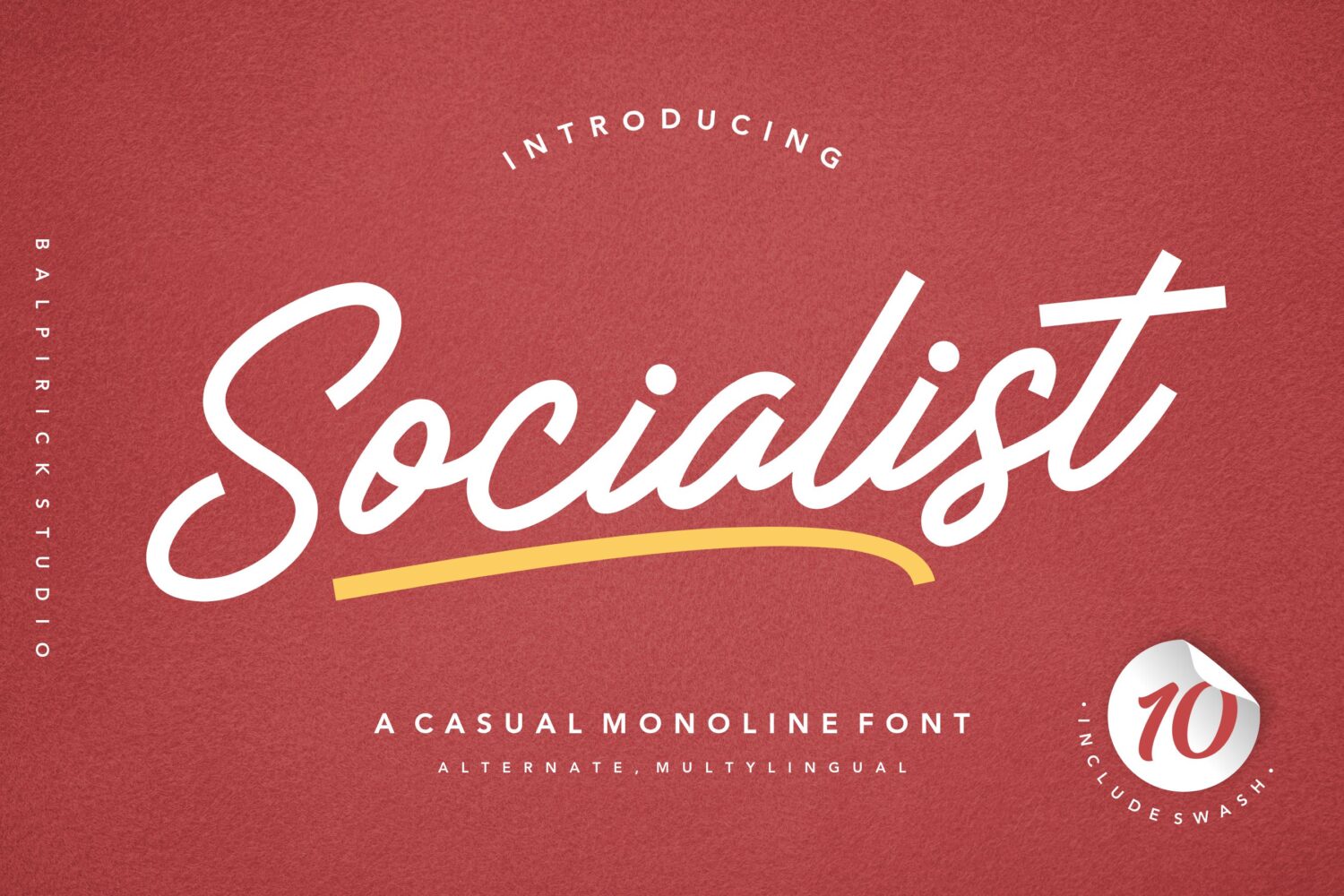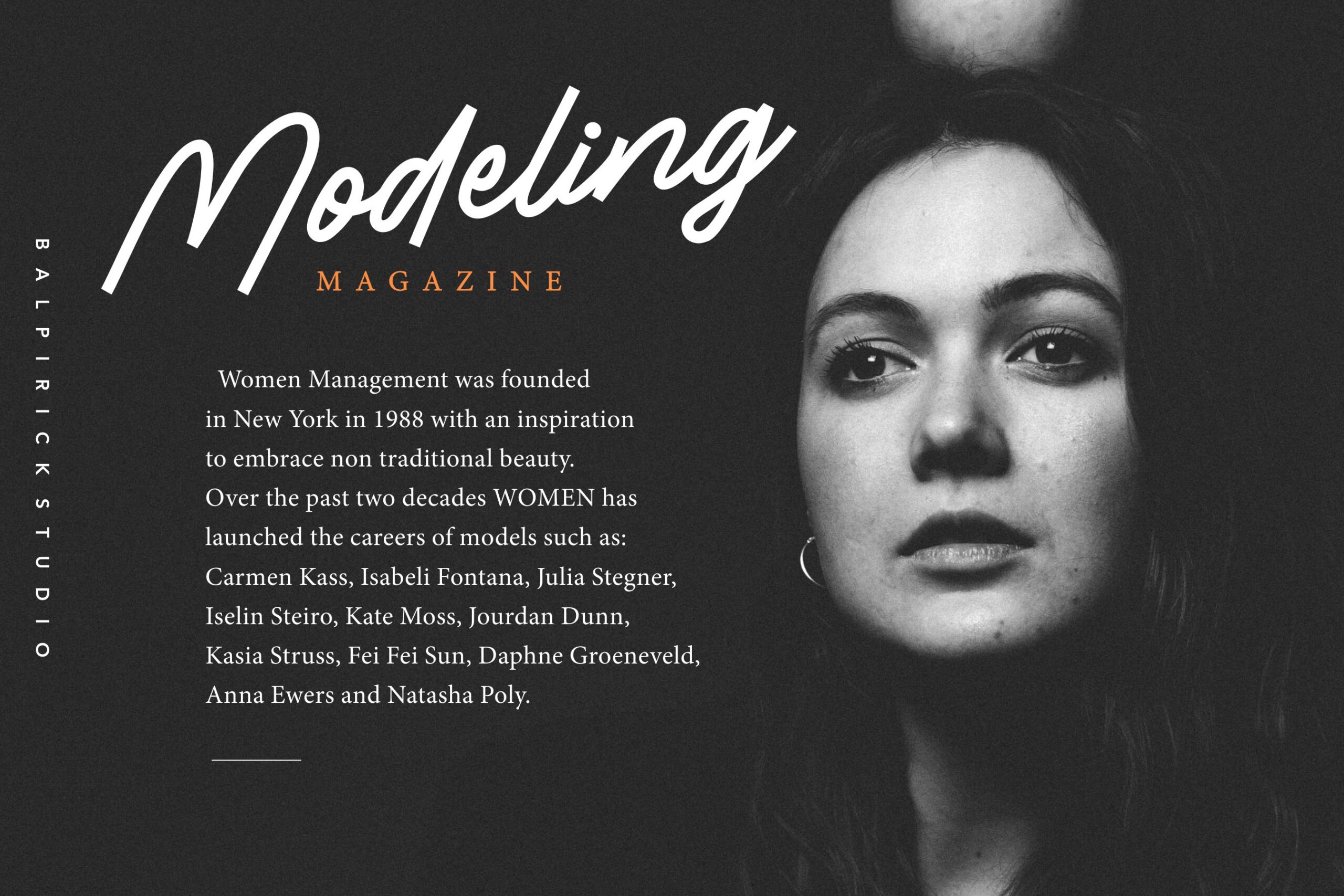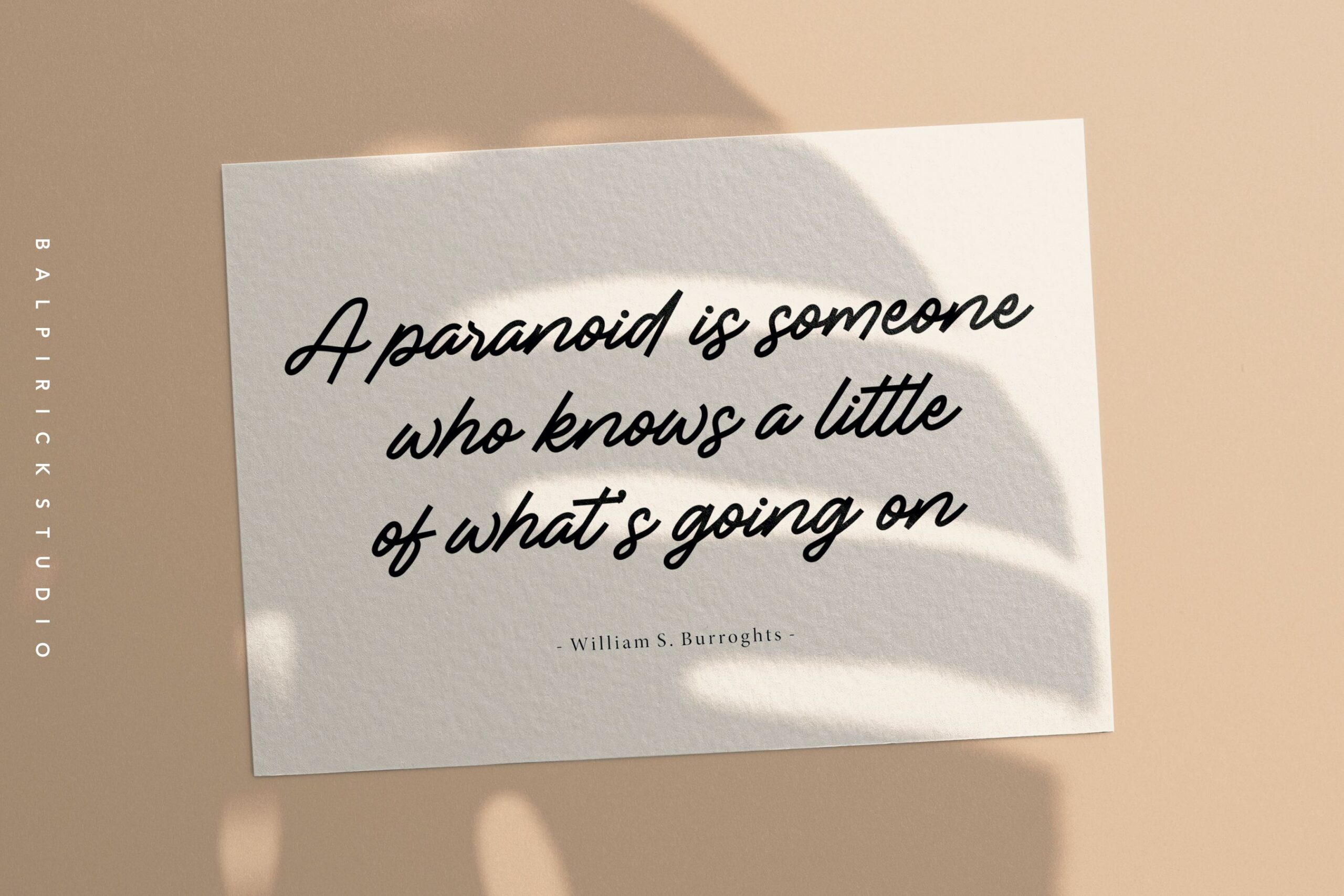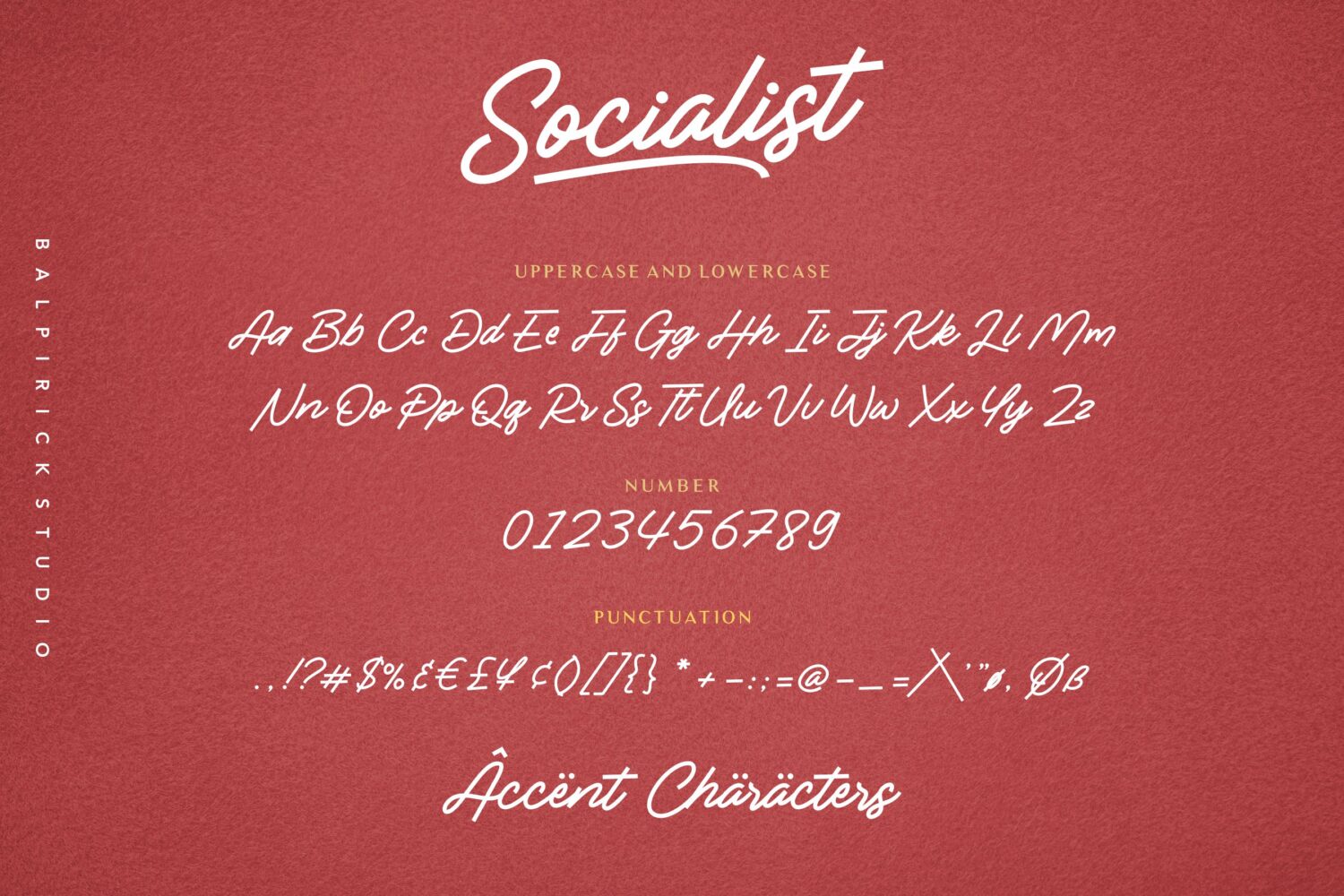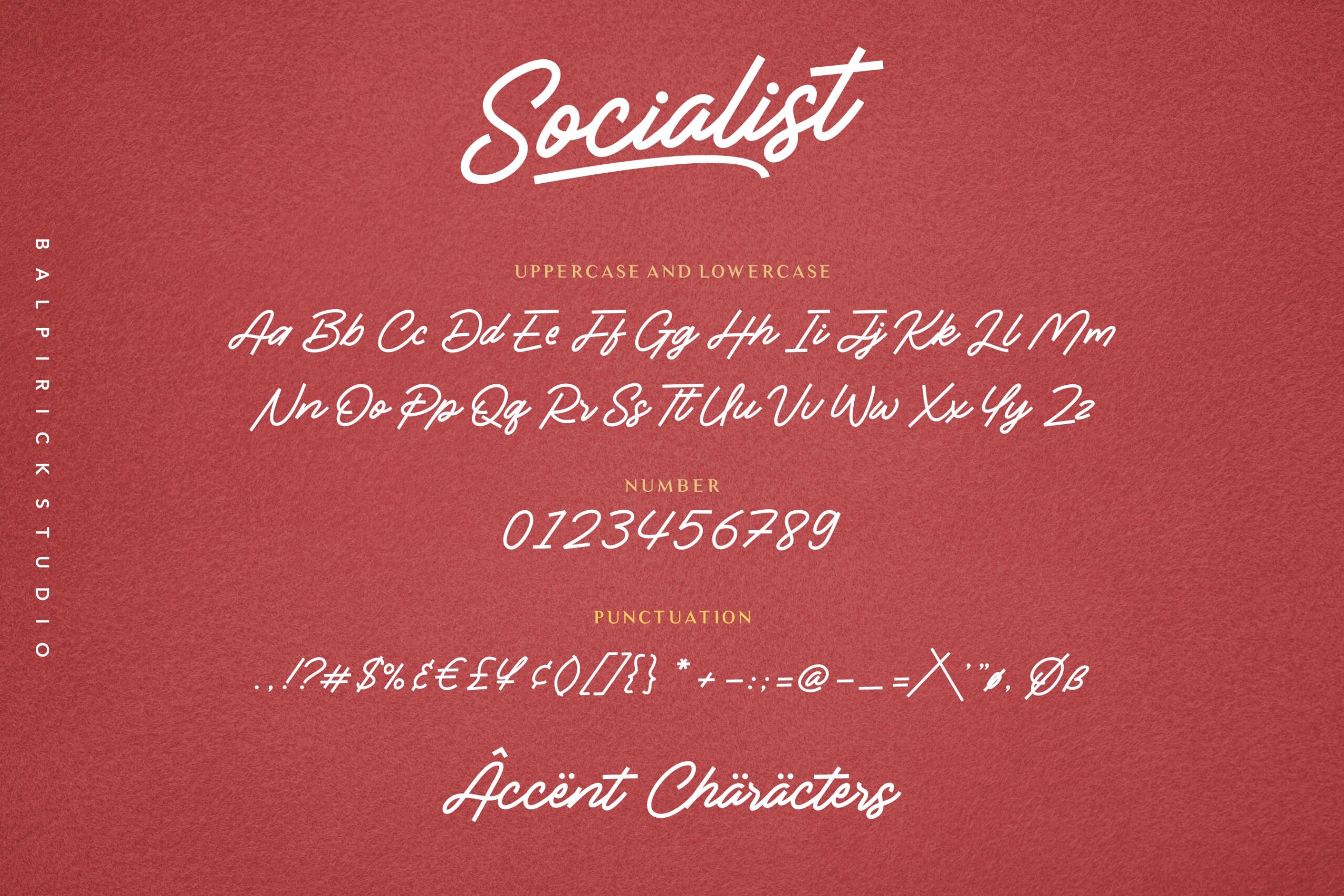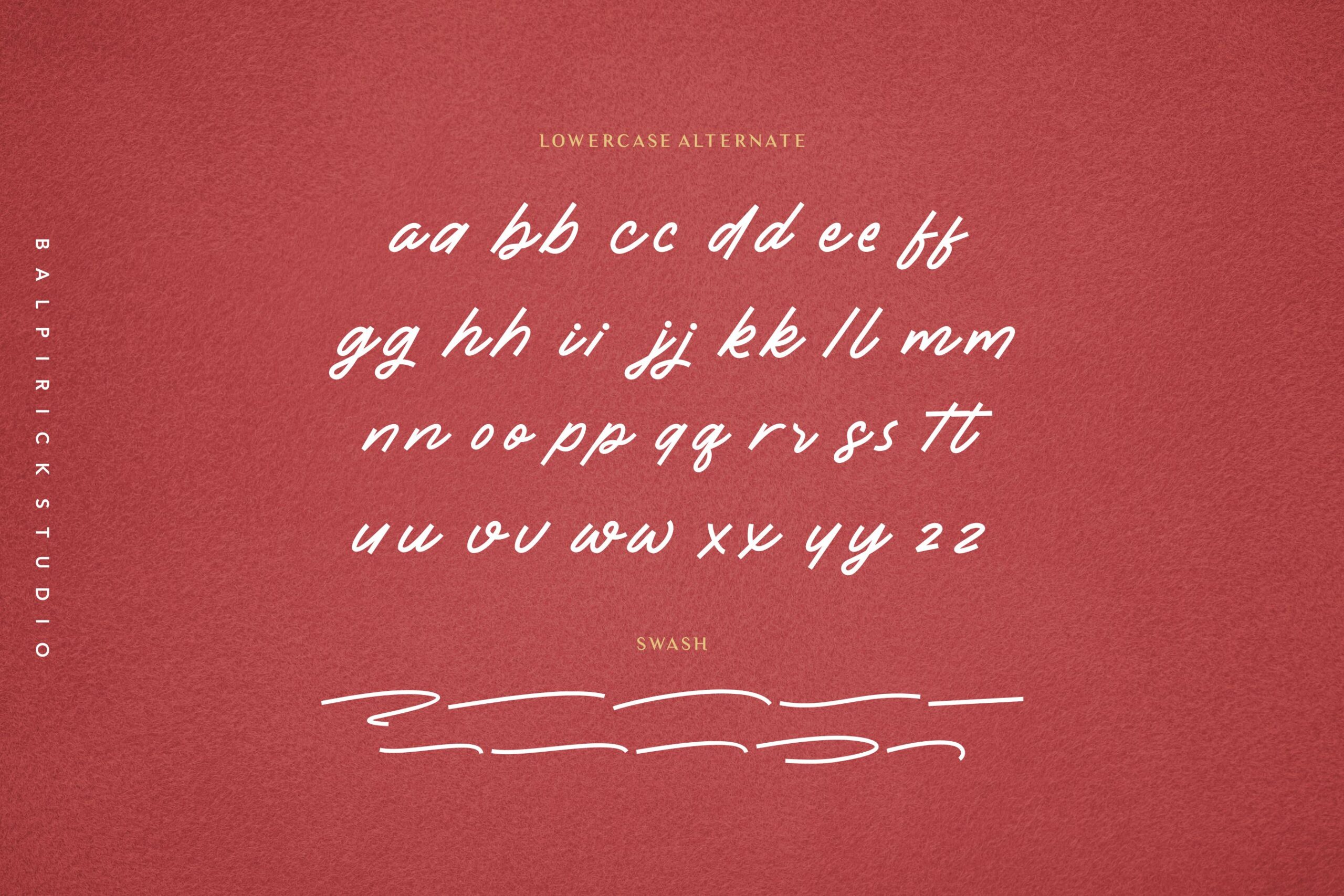
Socialist a Casual Monoline Free Font
Socialist a Casual Monoline Free Font is perfect for product packaging, logo, invitation, stationery, branding project, label, photography, watermark, magazine, social media post, wedding, or just used to express words above the background. This free typeface was designed by a talented Balpirick Studio. If you like it don’t forget to check out the full version.